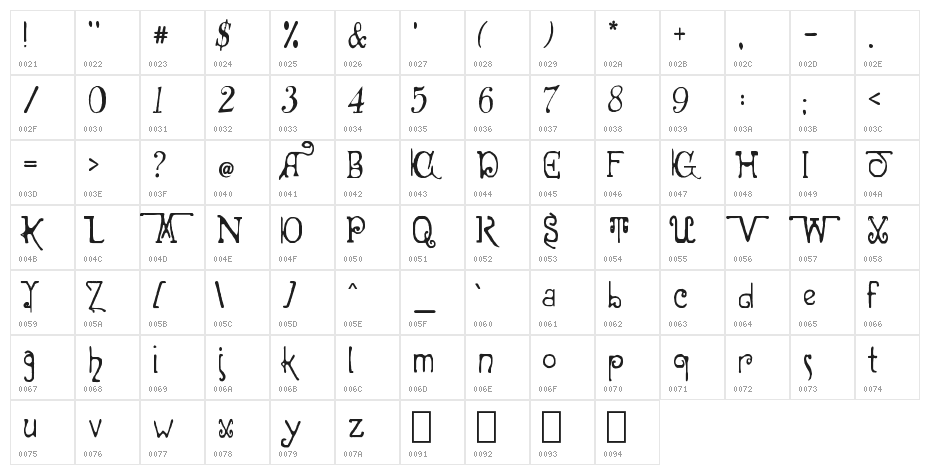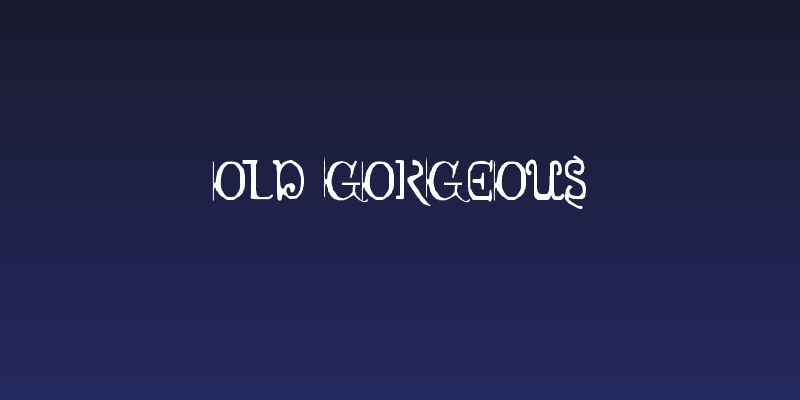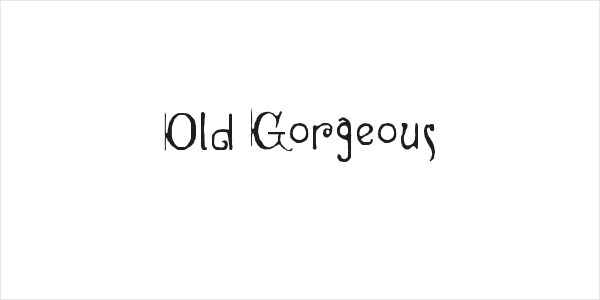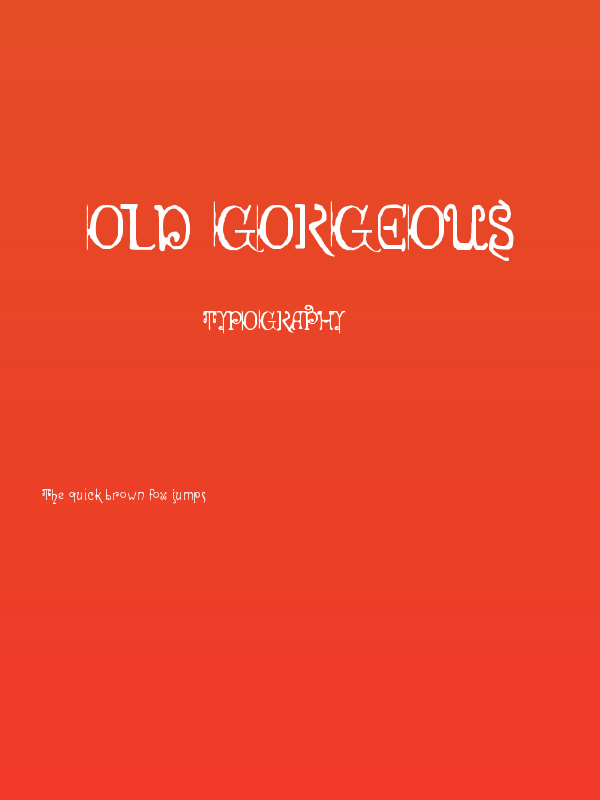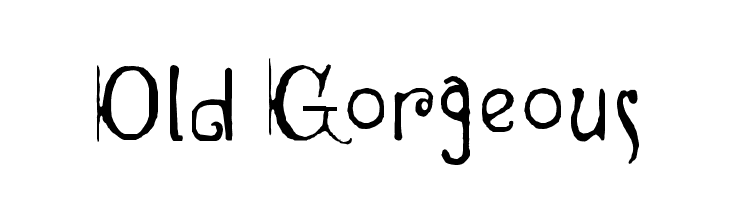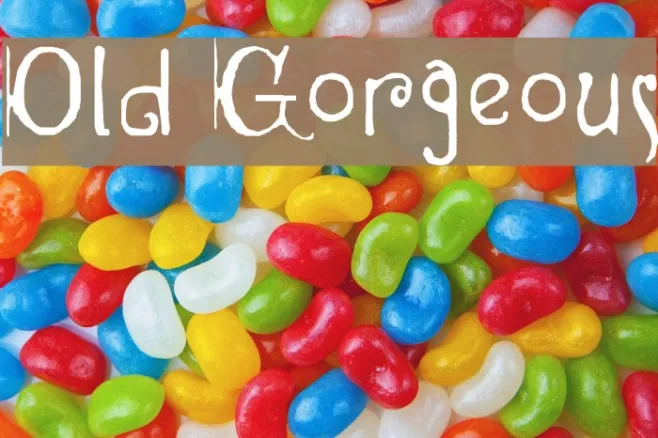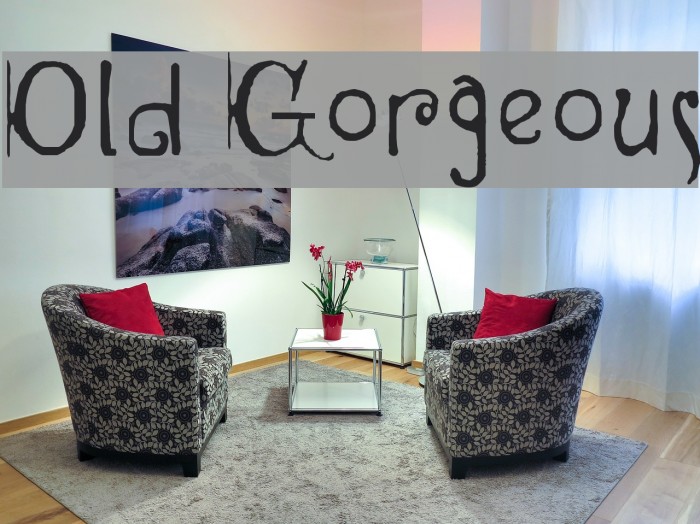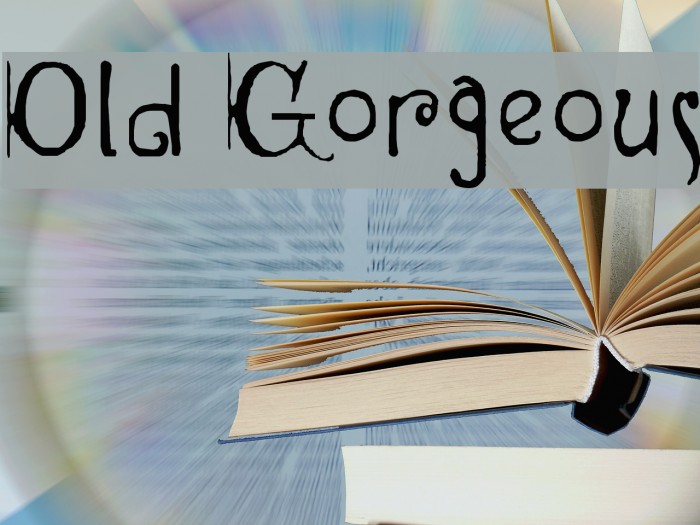
Old Gorgeous Font
Old Gorgeous Description
This font exhibits a unique and artistic style, characterized by its decorative and somewhat whimsical appearance. The uppercase letters feature intricate curves and flourishes, giving them a distinct and ornate look. The lowercase letters maintain a playful yet readable form, with some characters incorporating unexpected twists and loops. The numerals are bold and consistent with the overall decorative theme, while the special characters add a touch of flair with their creative designs. This font is ideal for projects that require a touch of elegance and creativity, making it suitable for artistic and expressive designs.
OLD-GORGEOUS UPPERCASE
OLD-GORGEOUS LOWERCASE
OLD-GORGEOUS OTHER CHARS
| Use Case | Headlines, Logos, Artistic projects |
| Proposed Projects | Ideal for invitations, artistic posters, branding for creative industries, and decorative headings. |